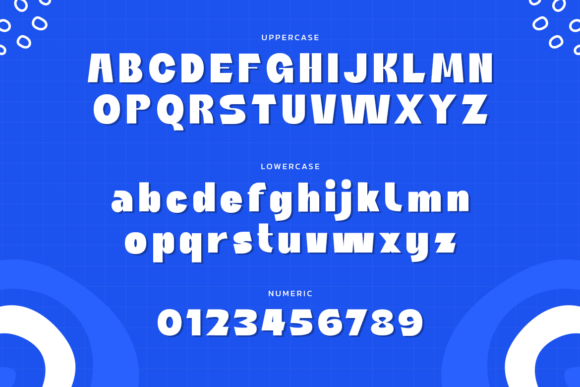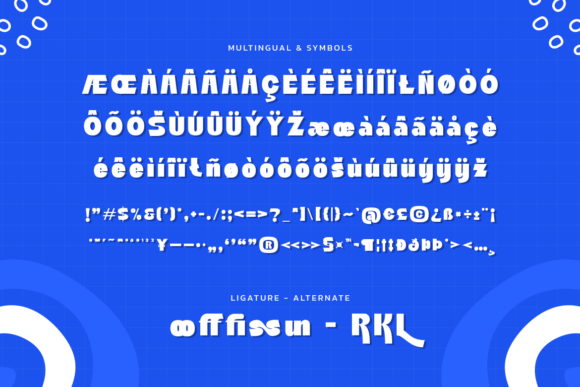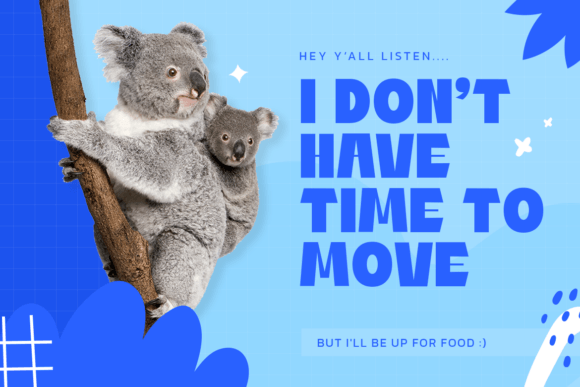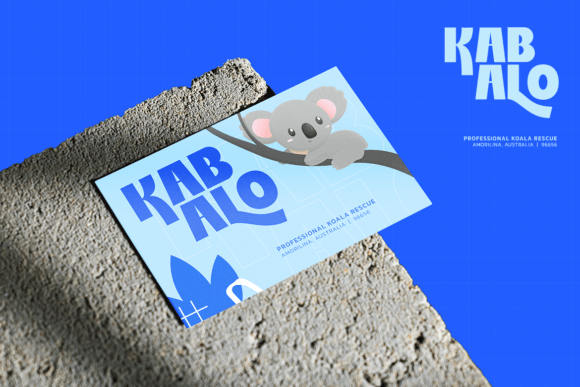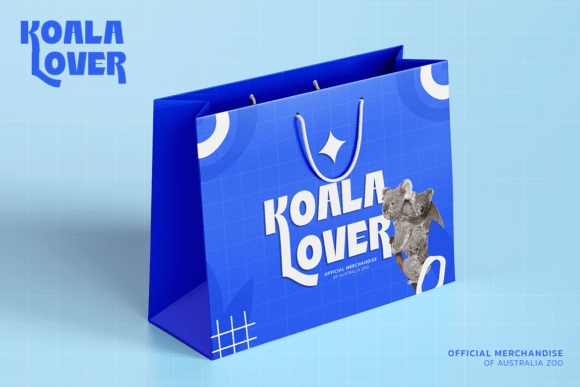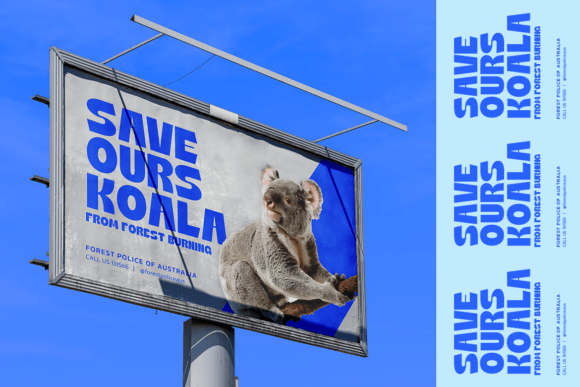
The Ultimate Design Game-Changer: Boozy Font
I’ll never forget the time I was working on a project for a trendy new coffee shop, and I just couldn’t find the right font to capture their fun and vibrant personality. The client wanted something bold, eye-catching, and Instagram-worthy. I scoured the internet, tried out a dozen different fonts, but nothing seemed quite right. That was until I stumbled upon Boozy Font. 💥
Boozy is a bold and striking fat font that brings a playful yet powerful presence to your designs. With its thick, chunky letters and modern style, Boozy is perfect for creating eye-catching headlines, posters, and branding materials that demand attention.
An Honest Review: What I Love and What I Don’t
- ✅ Instant Impact: Boozy’s robust design adds a sense of fun and energy to any project, making it ideal for creative endeavors that require a strong visual impact.
- ✅ Versatility: Whether used in digital or print media, Boozy stands out with its confident and dynamic character.
- ✅ Easy to Read: Despite its bold nature, Boozy remains surprisingly legible, even at smaller sizes.
- ⚠️ Limited Use Cases: Boozy is a display font, so it’s best used for headlines and titles rather than body text.
- ⚠️ May Not Suit All Brands: Boozy’s playful vibe might not be suitable for more serious or corporate brands.
- Experiment with Boozy’s OpenType features, such as glyphs and stylistic alternates, to add more personality to your text.
The Story Behind Boozy Font
Boozy Font was designed with the goal of creating a bold, eye-catching typeface that would add a touch of fun and personality to any design. Inspired by modern design trends and a passion for typography, Boozy Font is the perfect choice for designers looking to make a statement.
| What is Boozy Font best used for? | Boozy Font is best used for bold headlines, titles, and branding materials that demand attention. |
| Is Boozy Font suitable for body text? | No, Boozy Font is a display font and is best used for headlines and titles rather than body text. |
| Does Boozy Font support OpenType features? | Yes, Boozy Font supports OpenType features, including glyphs and stylistic alternates. |